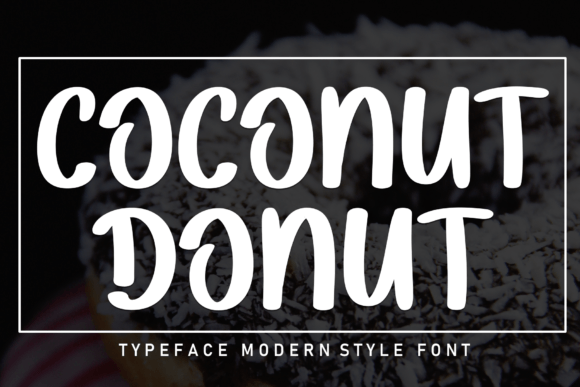
Slip into the whimsical world of Coconut Donut, a script font family that weaves a tale of enchantment and delight. Inspired by the sugary sweetness of coconut donuts, this font is a feast for the eyes, captivating hearts with its playful and charming aura. Let your imagination soar as you bask in the warmth and cheer exuded by Coconut Donut, a font that promises to make your designs sizzle with personality.
With its innate ability to captivate and engage, Coconut Donut is a perfect choice for wedding invitations, greeting cards, and any creative endeavor that craves a touch of whimsy. Its playful spirit adds a dash of charm, making it an ideal companion for branding and marketing materials, beckoning customers with its disarming charm.
Crafted with meticulous care by the talented Strongkeng Old, Coconut Donut is a font that embodies artistry and meticulous attention to detail. Each letterform is meticulously designed, showcasing a delightful dance of strokes that seamlessly intertwine, creating a visual symphony that dances across the page.
As you immerse yourself in the world of Coconut Donut, you'll discover a boundless realm of possibilities. This font possesses the uncanny ability to transform ordinary words into exquisite works of art. Its versatility knows no bounds, lending itself effortlessly to a myriad of design aesthetics, from the classic and elegant to the modern and edgy.
With Coconut Donut in your creative arsenal, you'll find yourself consistently captivated by its infectious charm. Its ability to evoke smiles and spread joy is simply magical, transforming your designs into captivating experiences that dance and twirl before the eyes of your audience.
Embrace the allure of Coconut Donut, and unlock a world of enchantment and delight. Surrender to its sugary sweetness and allow your creativity to blossom like never before. Let this font guide you on a journey of artistic exploration, transforming your designs into captivating masterpieces that resonate with warmth and charm.